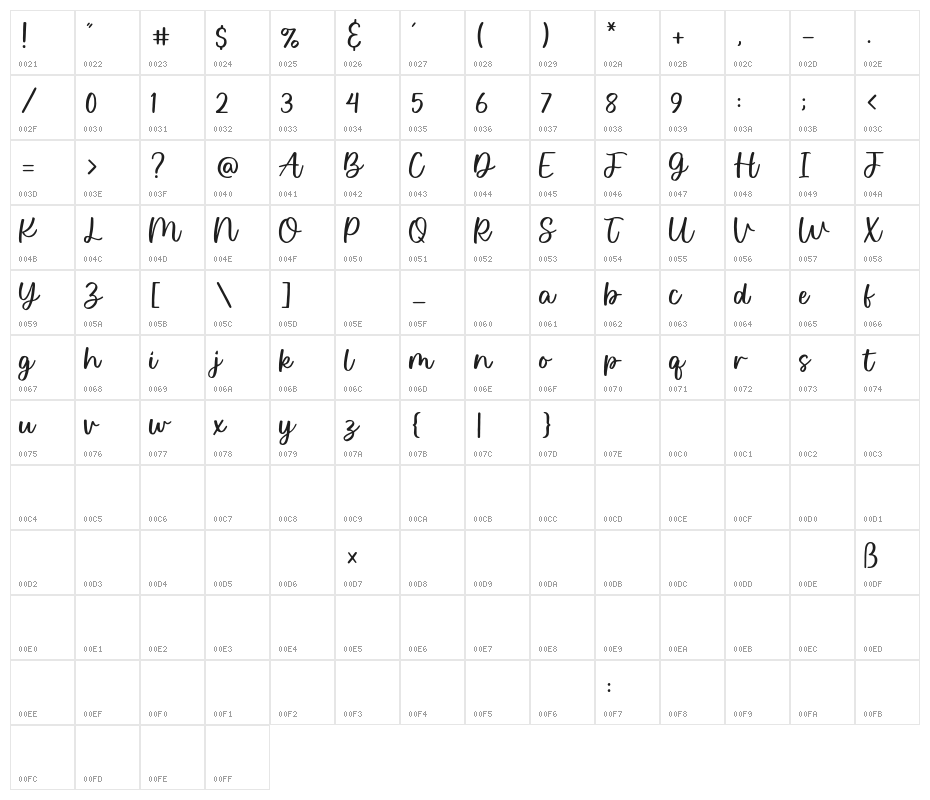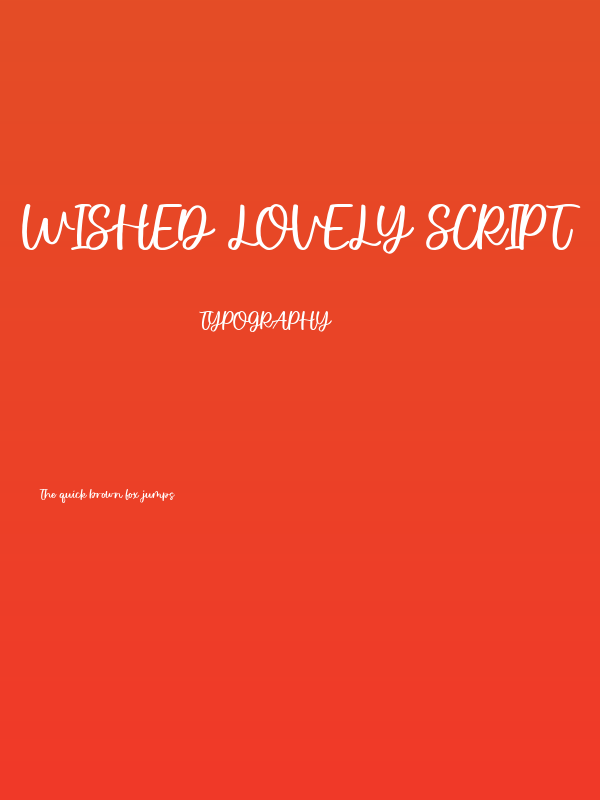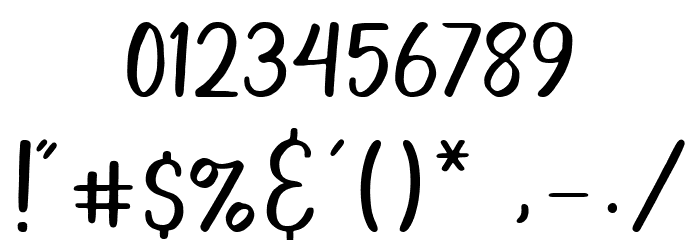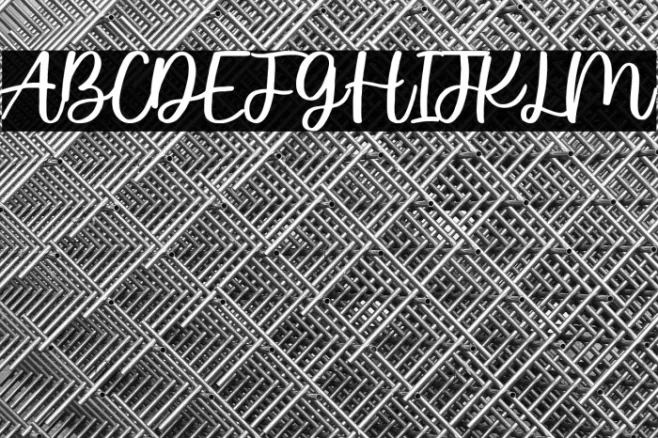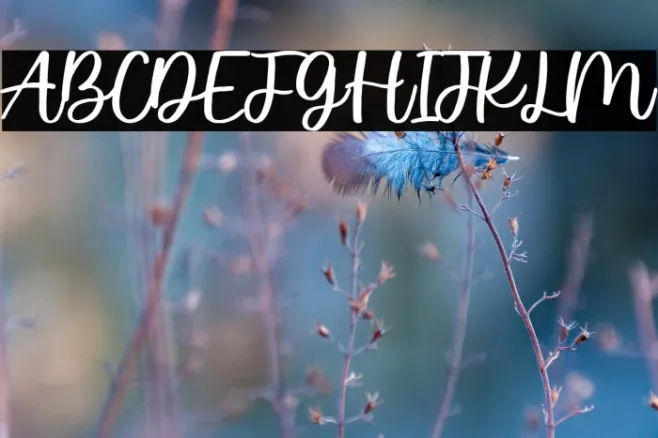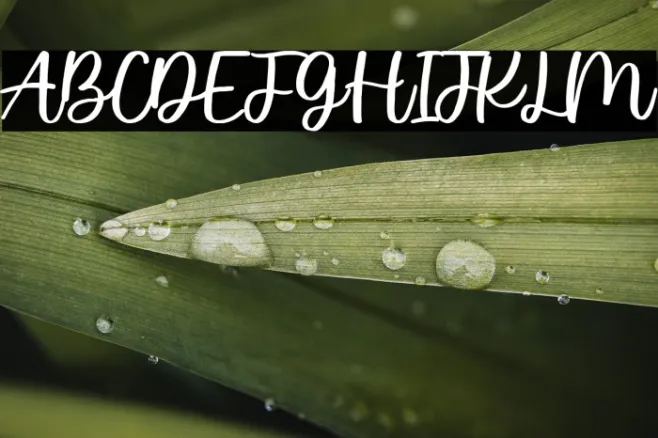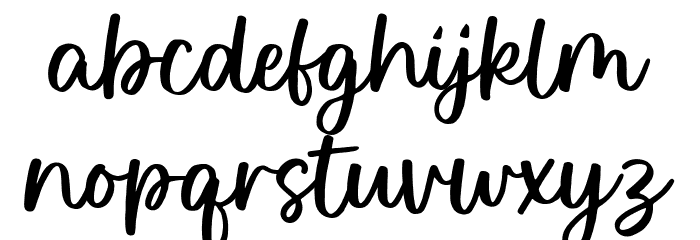
Wished Lovely Script Font
Wished Lovely Script Description
This font features a charming and fluid script style, characterized by its elegant and flowing letterforms. The uppercase letters exhibit a graceful, cursive design with smooth curves and a consistent stroke width, creating a harmonious and inviting appearance. The lowercase letters continue this theme with a slightly more playful and informal touch, maintaining readability while adding a touch of whimsy. The numerals are clear and well-balanced, complementing the overall script style. Special characters are thoughtfully integrated, ensuring versatility for various design needs. This font's cohesive and stylish nature makes it ideal for projects that require a personal and artistic touch.